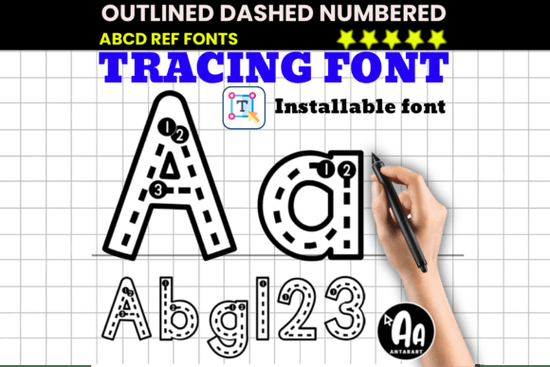
The Outlined Dashed Tracing Font is a versatile tool for educators, parents, and creative professionals looking to support early literacy and handwriting development. This font collection is specifically designed to make learning to write more engaging and effective, especially for young learners aged 4–8. Whether you're creating printable worksheets, classroom decorations, or custom tracing exercises, this font offers a structured approach to letter formation that’s both fun and educational.
One of the standout features of the Outlined Dashed Tracing Font is its combination of dashed lines and numbered stroke order. This helps students follow the correct sequence when forming letters, which is essential for building muscle memory and proper writing technique. The hollow letter shapes allow for easy tracing, while the added numbering provides clear guidance for each step of the process. This makes it an excellent resource for teachers who want to incorporate explicit handwriting instruction into their lessons.
The font includes uppercase and lowercase letters, numbers (0–9), and common symbols, making it suitable for a wide range of handwriting practice activities. It’s ideal for creating interactive worksheets, alphabet charts, and student name templates. Because it’s based on a traditional school handwriting style, it aligns with common educational standards and can be used in both classroom and homeschool settings.
For example, you can create custom tracing sheets for students by designing letters with dashed lines and adding numbered steps. You can also use the font for bulletin board displays, classroom signs, or decorative elements that reinforce letter recognition. Its clean, simple design ensures that it works well in both digital and printed formats.
Handwriting is a critical skill for young learners, and the Outlined Dashed Tracing Font supports this development in a structured and engaging way. By combining tracing with numbered stroke order, it helps children build confidence in their writing abilities while reinforcing letter shapes and proper formation. This is especially beneficial for preschool and kindergarten students who are just starting to learn how to write.
Teachers and homeschooling parents can use this font to create personalized learning materials that cater to different learning styles. For instance, visual learners may benefit from the clear, outlined letters, while kinesthetic learners can engage with the tracing activity. The font’s versatility allows it to be used in a variety of settings, from back-to-school reviews to alphabet practice sheets and handwriting books.
Whether you’re a teacher, designer, or hobbyist, the Outlined Dashed Tracing Font is a valuable addition to your toolkit. Its focus on structured handwriting practice makes it a practical and effective resource for helping children develop essential writing skills.